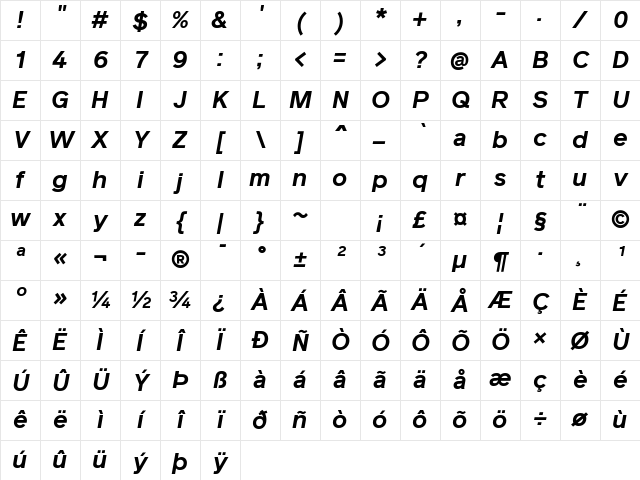
Reader Pro Bold Italic
Foundry: Colophon Foundry
Designer: Colophon Foundry
Design Context for Reader Pro
Reader Pro is a composed and adaptable typeface that performs quietly and consistently across a wide range of design contexts. The slanted form adds forward momentum and visual energy. Its bold stroke weight gives it real presence on the page.
Pro Tip: Use Reader Pro for emphasis, pull quotes, and subheadings where its slanted energy can add rhythm to the layout.